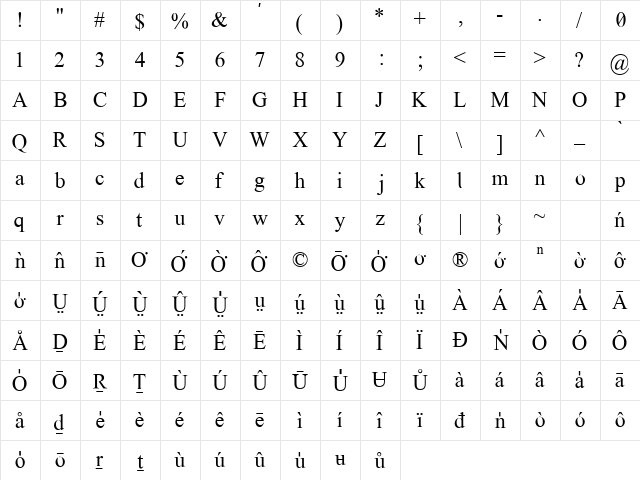
Taiwanese Serif Regular
Design Context for Taiwanese Serif Typeface
Taiwanese Serif carries the refined structure of traditional serif typography, with bracketed terminals and considered proportions that communicate credibility and craft.
Pro Tip: Use Taiwanese Serif for editorial body copy and considered headline work. Pair with a neutral sans for UI elements or captions to create a classic hierarchy.